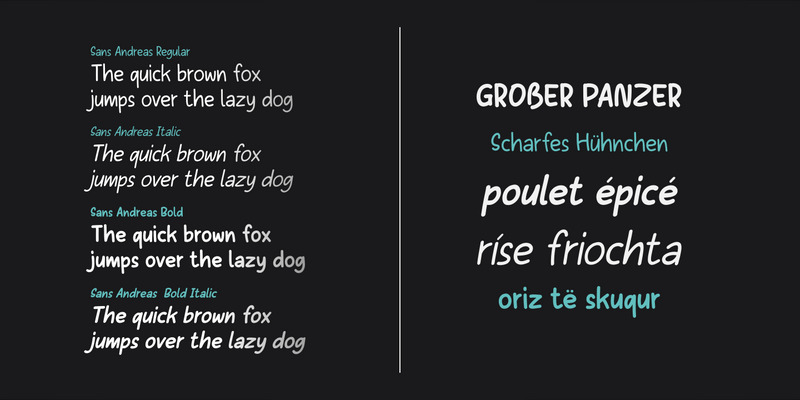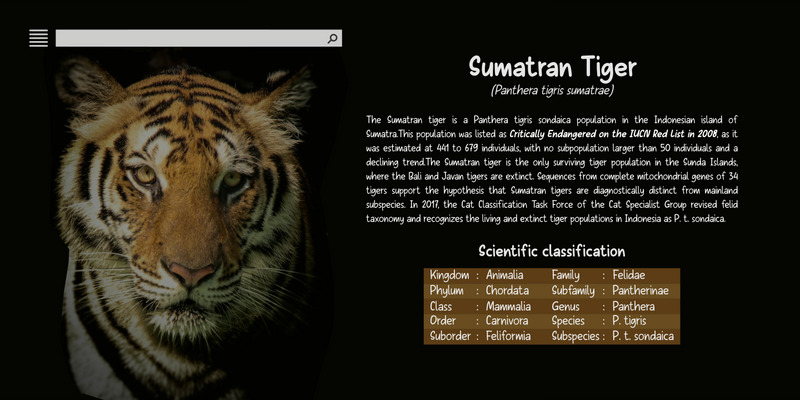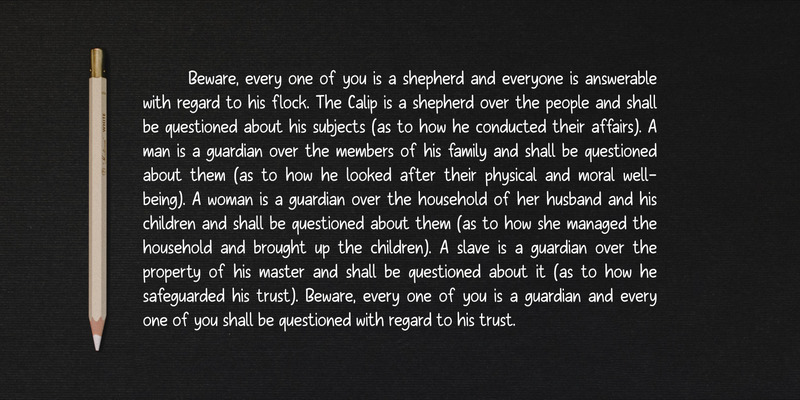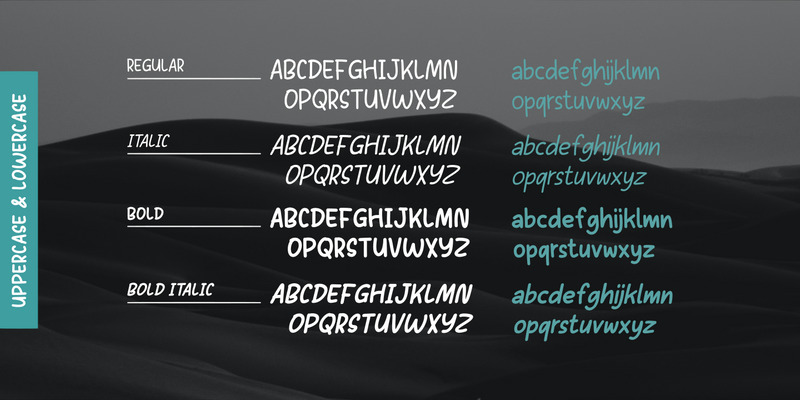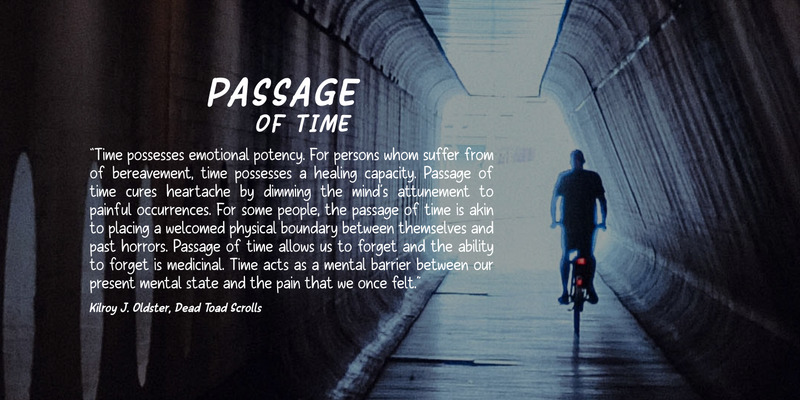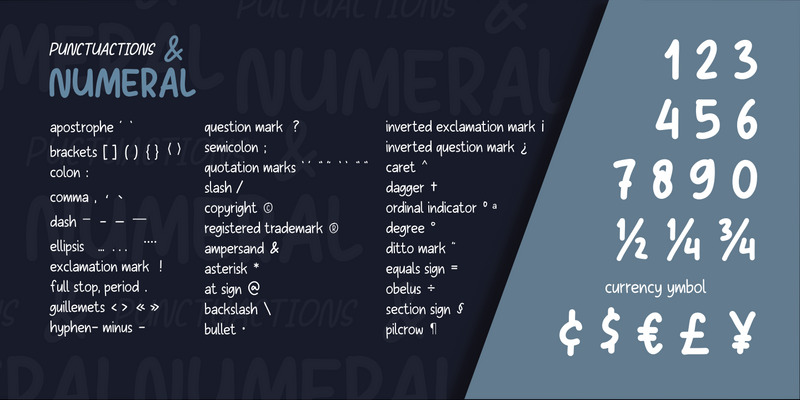
Sans Andreas Handwritten Family Fonts
Proudly present the newest handwritten font called Sans Andreas. These font made by handwritten style, so all shape looks unique and natural. Sans Andreas is a family font, with 4 styles regular, italic, bold, bold italic. Sans Andreas is also perfect for all your project that has sense fun, playful, art, and .etc
- Uppercase and lowercase characters
- Numeral and punctuation
- Multilingual Support for 23 languages